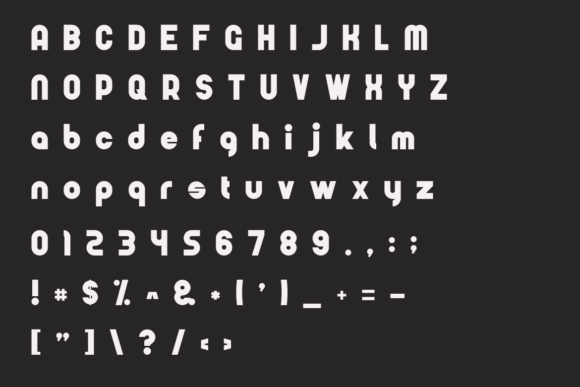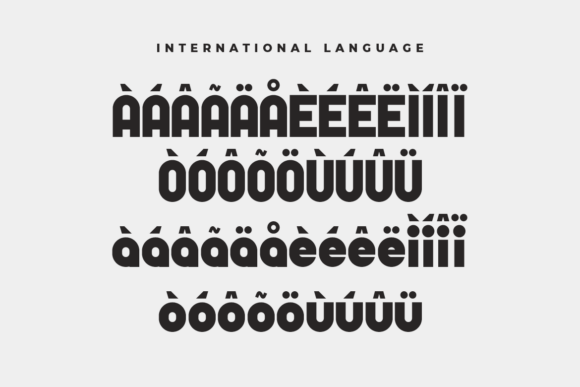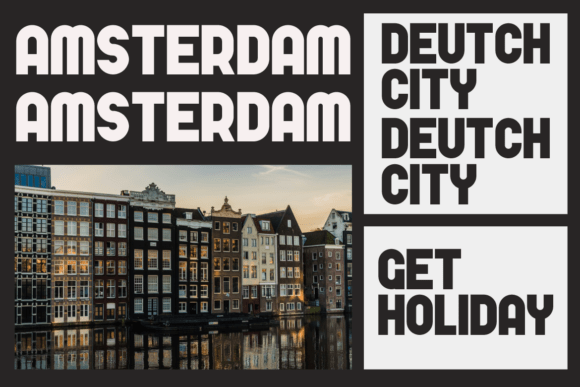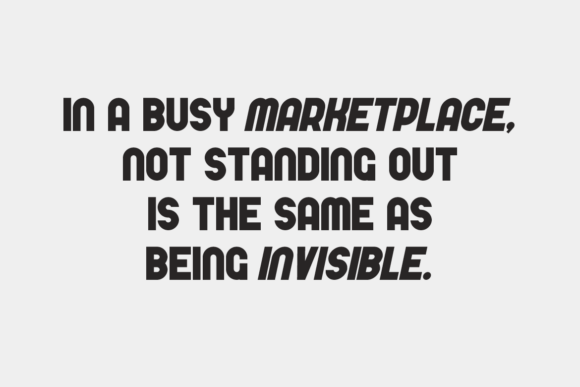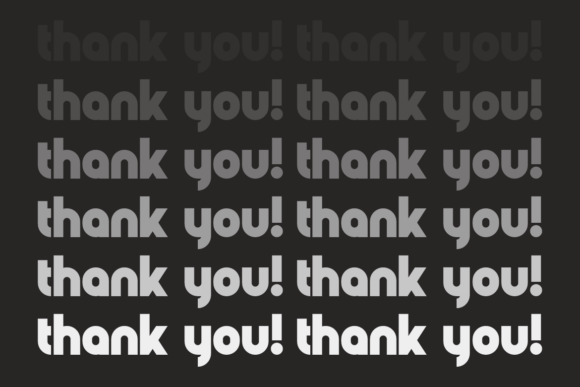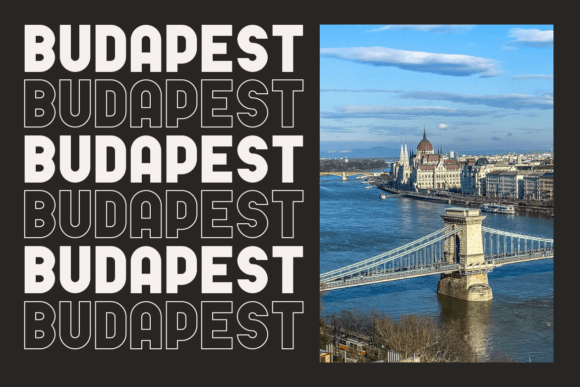
Introduction to Miniro Font
Have you ever been working on a creative project and stumbled upon the perfect font to bring your vision to life? For designers, that moment is pure magic. It’s the moment when everything clicks, and the design starts to flow effortlessly. For me, that moment happened when I discovered the Miniro Font. This sleek and refined sans serif font is a game-changer for anyone looking to add a touch of timeless simplicity to their design.
What sets Miniro apart from other design resources is its high quality and versatility. With smooth lines, well-balanced proportions, and a geometric foundation, Miniro is perfect for branding, packaging, editorial design, digital content, and web interfaces that require a minimalist aesthetic. Whether you’re working on a personal project or a commercial campaign, Miniro Font is a valuable addition to your design toolkit.
Key Features of Miniro Font
- Features a clean and minimalist design, making it suitable for a wide range of applications, from logos to typography.
- Comes in a single size, but is highly scalable, ensuring crisp and clear display at various resolutions.
- Designed to be versatile and adaptable, making it an excellent choice for designers working on diverse creative projects.
Honest Review: Miniro Font
As a designer, I’m always on the lookout for high-quality design resources to elevate my creative projects. The Miniro Font has been a welcome addition to my toolkit, and I’m excited to share my thoughts on it.
- Modern and sleek design: The Miniro Font has a clean, minimalist aesthetic that makes it perfect for contemporary designs.
- High-quality vectors: The font is available in high-resolution vector format, making it ideal for large-scale prints and digital applications.
- Limited character set: The Miniro Font has a relatively small character set, which may limit its usability for more extensive creative projects.
Overall, I’m impressed with the Miniro Font’s design and versatility. While it may have some limitations, it’s an excellent choice for designers looking for a high-quality, modern font for their creative projects.
Getting the Most Out of Miniro Font
To get the most out of Miniro Font, use it in conjunction with high-quality images and design elements. Experiment with different font sizes and colors to create visually appealing designs.
Miniro Font is commonly used in:
- Web design projects
- Marketing materials, such as brochures and flyers